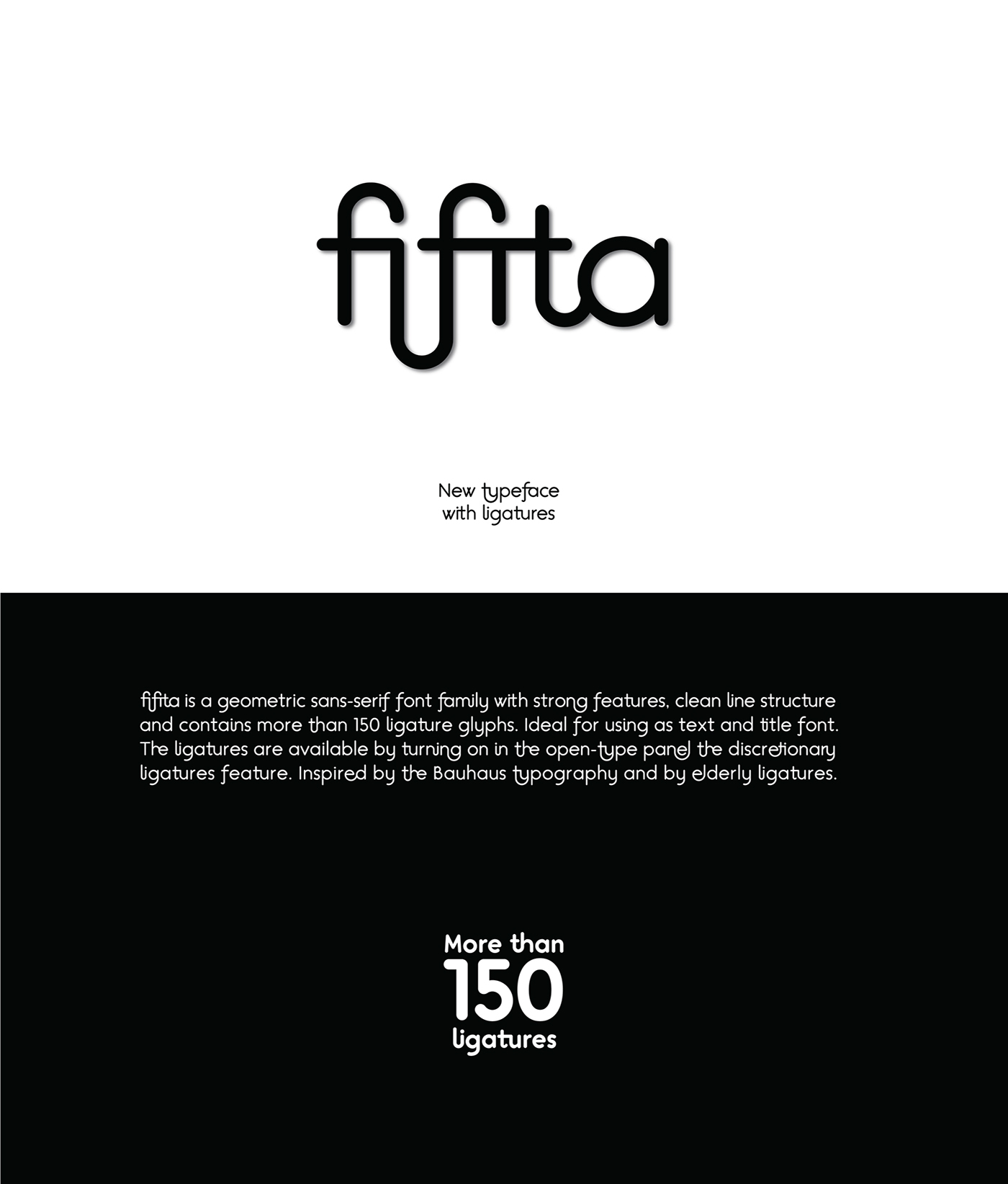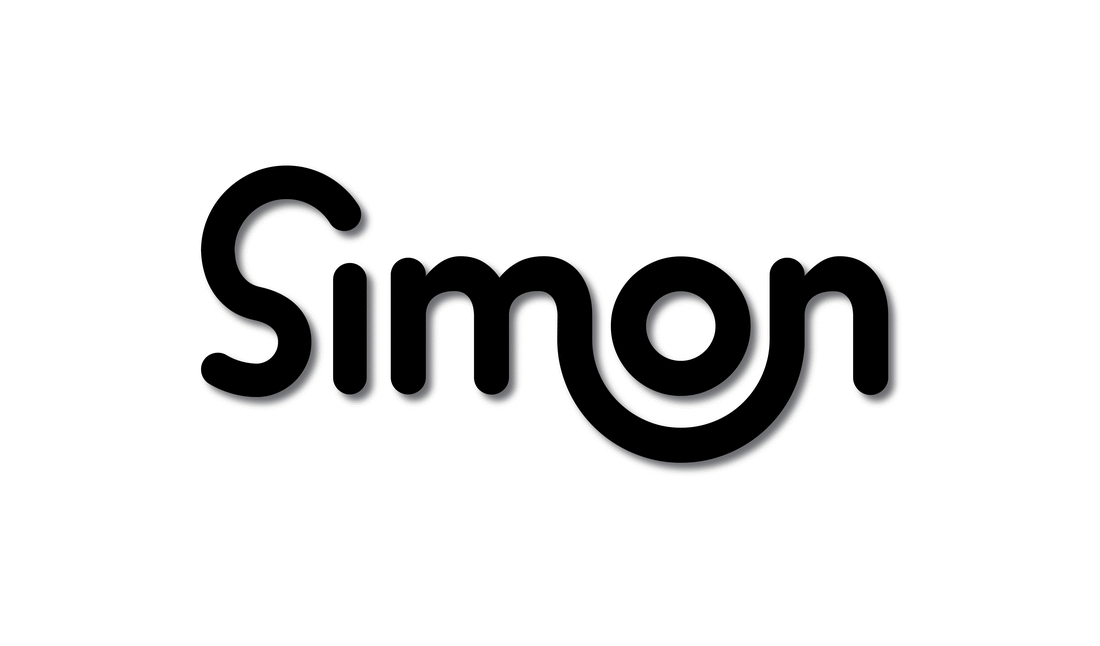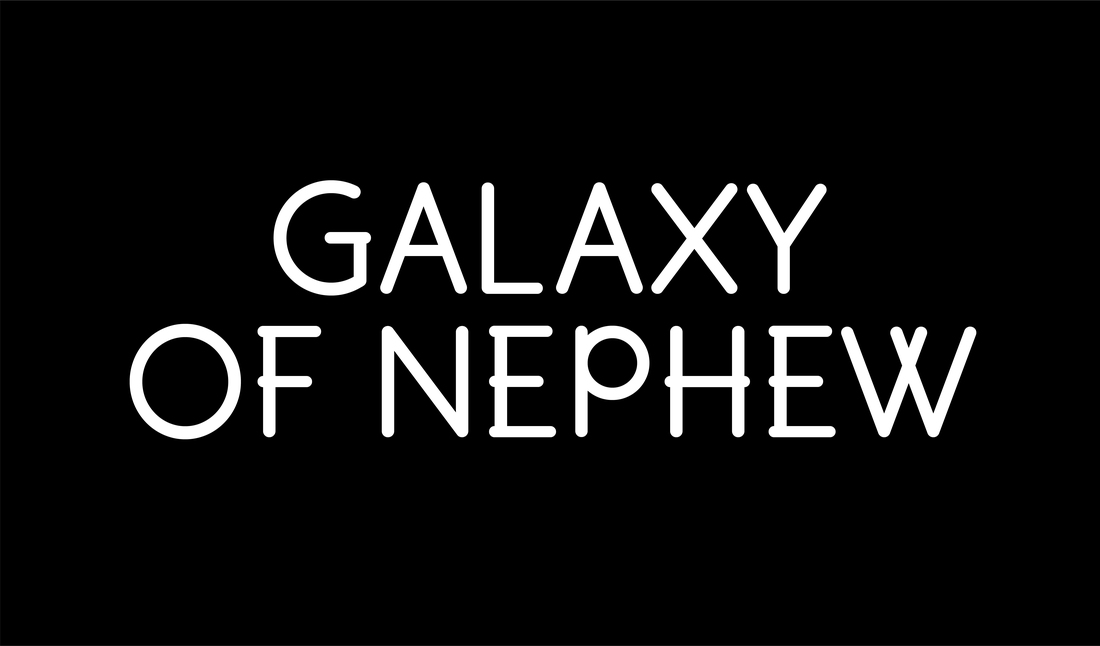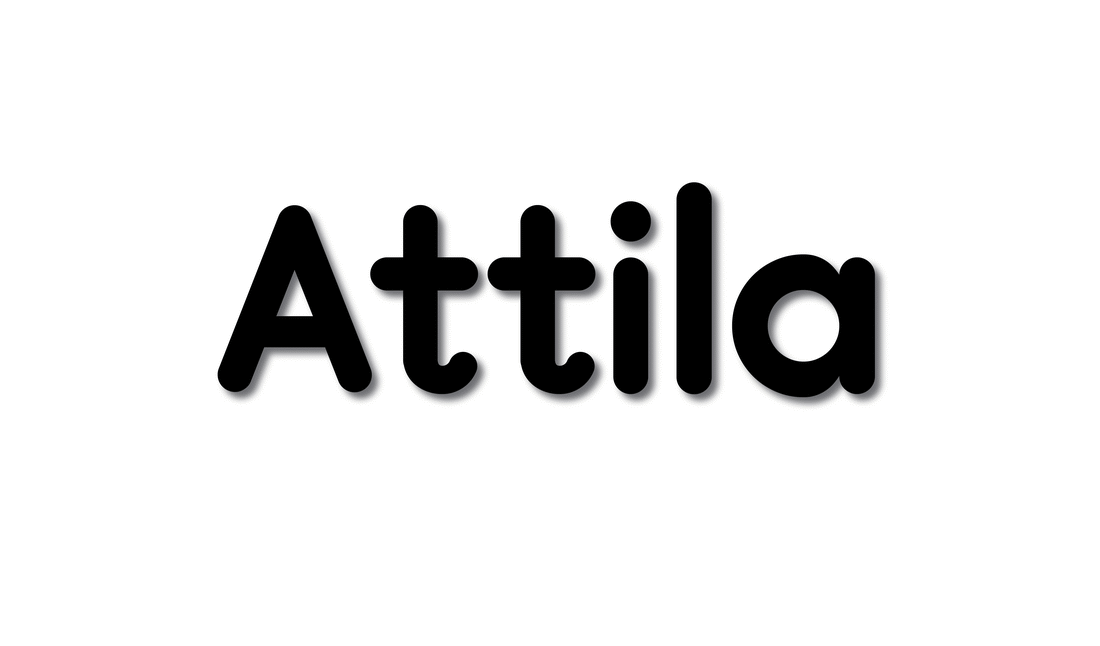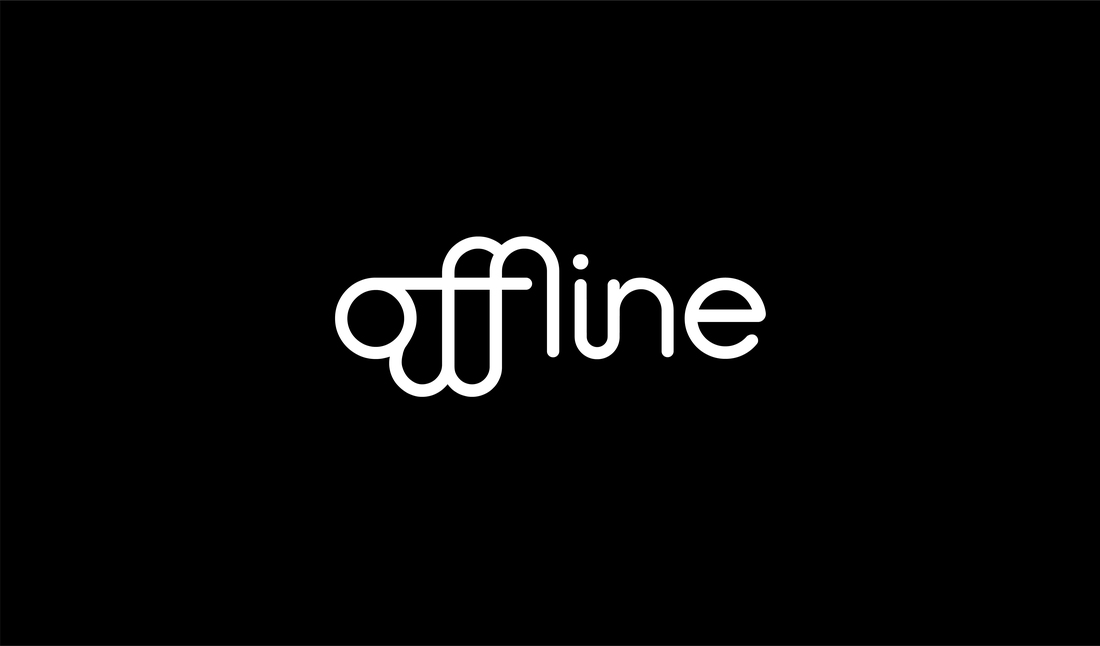
Fifita is a geometric sans-serif font created by Kolcsar Zsolt from Târgu Mureș, Romania. Fifita has strong features, clean line structure and contains more than 150 ligature glyphs. Ideal for using as text and title font. The ligatures are available by turning on in the open-type panel the discretionary ligatures feature. Inspired by the Bauhaus typography and by elderly ligatures.